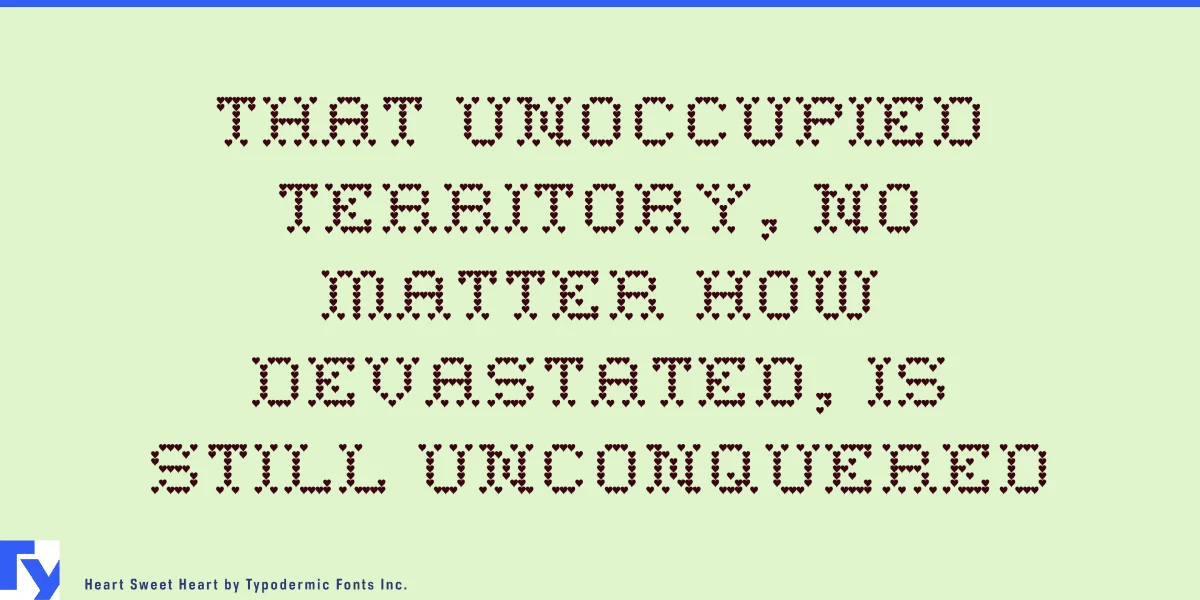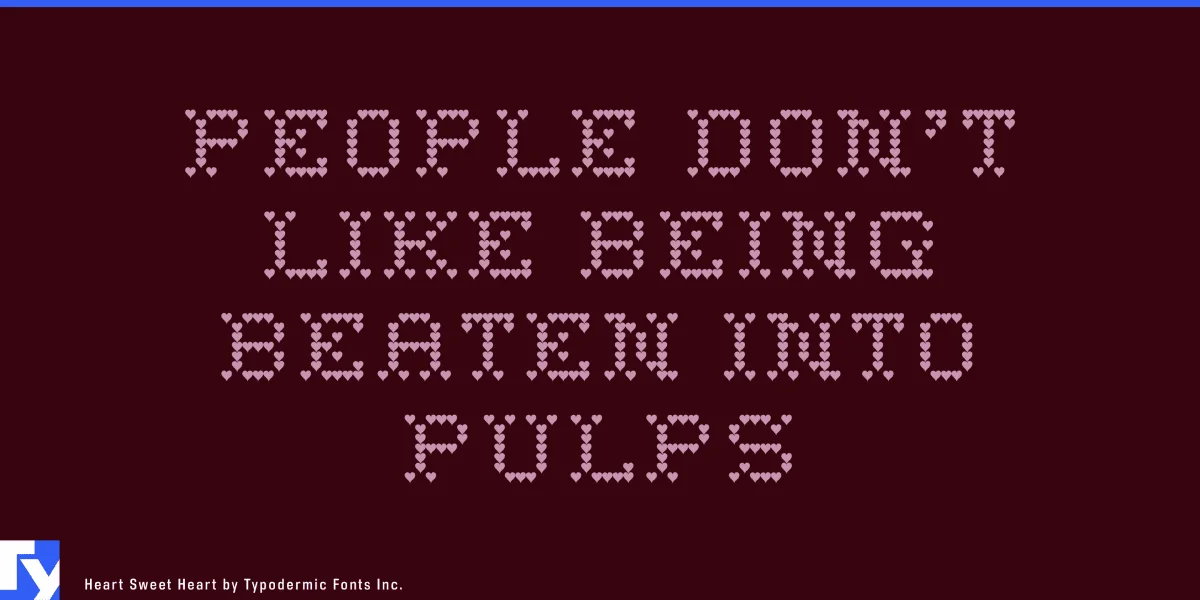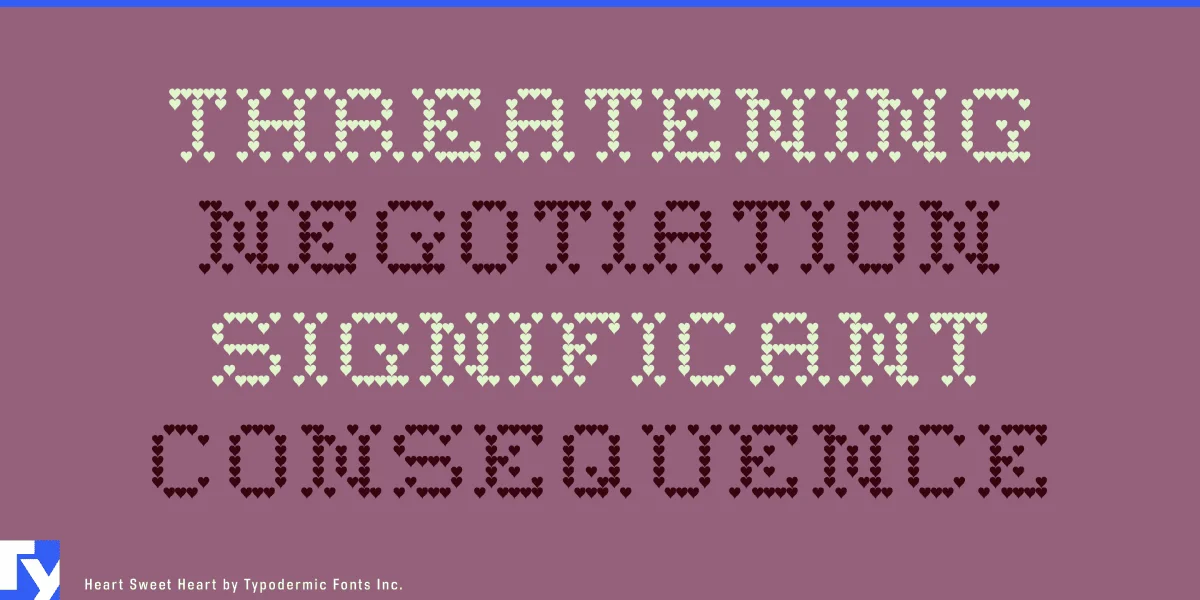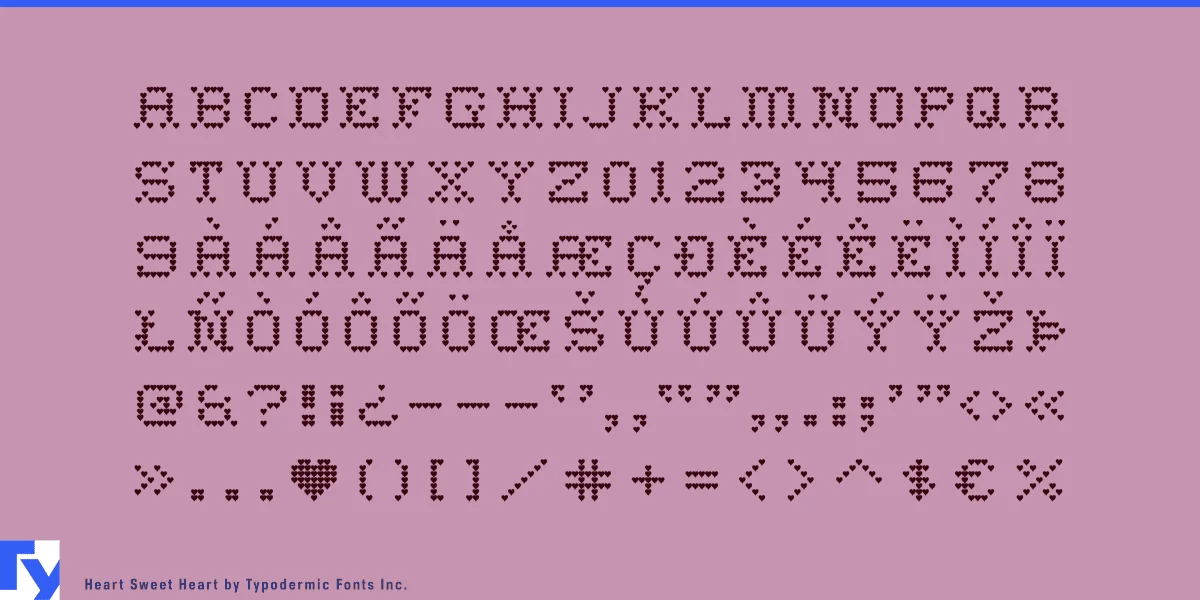
Heart Sweet Heart contains a surfeit of sweet hearts. This rustic typeface will give your message a cozy atmosphere. Some Latin-based European writing systems are supported, including the following languages. Afaan Oromo, Afar, Afrikaans, Albanian, Alsatian, Aymara, Basque, Bemba, Bikol, Breton, Cape Verdean, Creole, Catalan, Cebuano, Chamorro, Chavacano, Danish, Dawan, Dholuo, Dutch, English, Estonian, Faroese, Fijian, Filipino, Finnish, French, Frisian, Friulian, Galician, Genoese, German, Guadeloupean Creole, Haitian Creole, Hiligaynon, Icelandic, Ilocano, Indonesian, Irish, Italian, Jamaican, Kaqchikel, Kikongo, Kinyarwanda, Kirundi, Lombard, Low Saxon, Luxembourgish, Makhuwa, Malay, Ndebele, Neapolitan, Norwegian, Novial, Occitan, Papiamento, Piedmontese, Portuguese, Quechua, Rarotongan, Romansh, Sango, Saramaccan, Sardinian, Scottish Gaelic, Shona, Sicilian, Silesian, Slovak, Slovenian, Somali, Sotho, Spanish, Swahili, Swazi, Swedish, Tagalog, Tetum, Tshiluba, Tsonga, Tswana, Tumbuka, Uzbek (Latin), Venetian, Võro, Walloon, Waray-Waray, Wayuu, Xhosa, Yapese, Zapotec Zulu and Zuni.